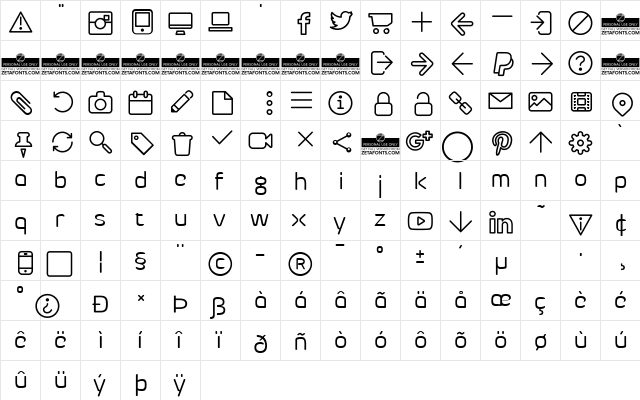
Byom Icons Regular
| Foundry | Studio Kmzero |
| Designer | Francesco Canovaro |
Design Context for Byom Icons Typeface
Byom Icons takes a measured approach to typography — its balanced proportions and neutral character make it a reliable workhorse for both digital and print work.